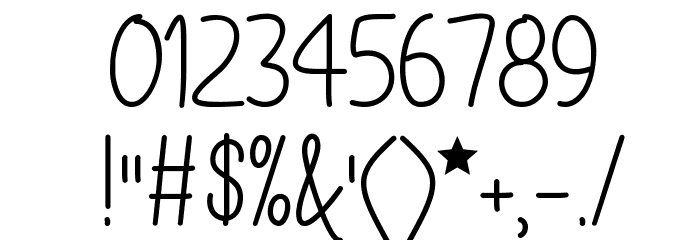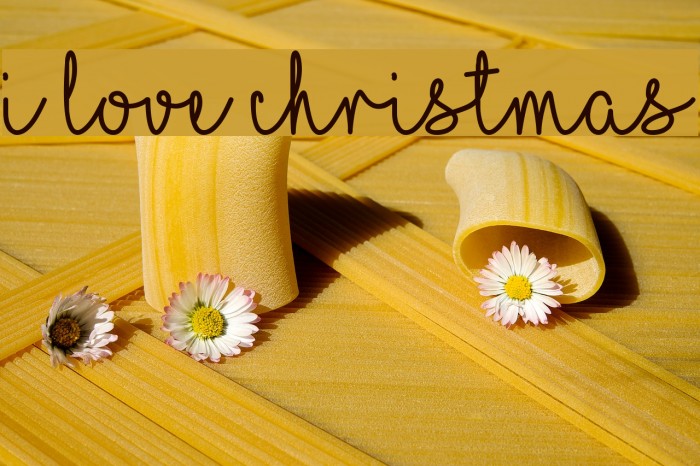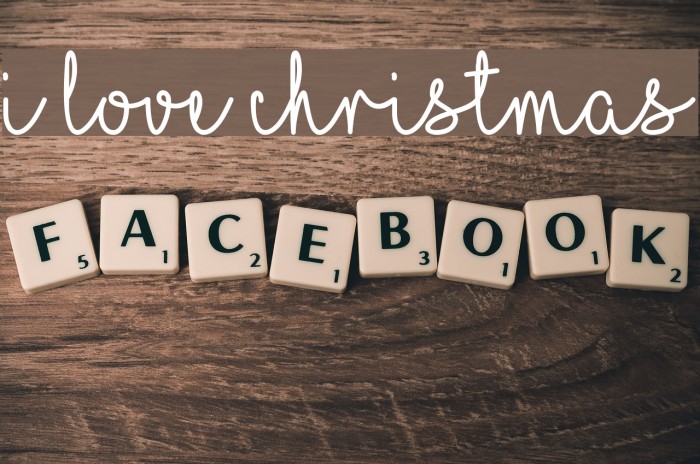
I Love Christmas Font
This font features a playful and whimsical handwritten style, characterized by its smooth, flowing lines and cursive letterforms. The lowercase letters are particularly distinctive, with loops and curves that give the font a lively and dynamic appearance. The uppercase letters maintain a consistent style, complementing the lowercase with their rounded and connected strokes. Numbers and special characters are designed to match the overall aesthetic, ensuring a cohesive look across all text. The font's informal and friendly nature makes it ideal for projects that require a personal touch.
A playful handwritten font with smooth, flowing cursive lines.
- Proposed Projects: Greeting cards, invitations, personal branding, social media graphics, and children's book illustrations.
- Category: Handwritten
- Overall Style: Playful, Whimsical
- Use Case: Headlines, Logos, Personal projects